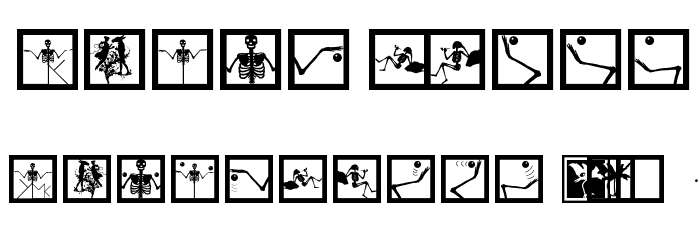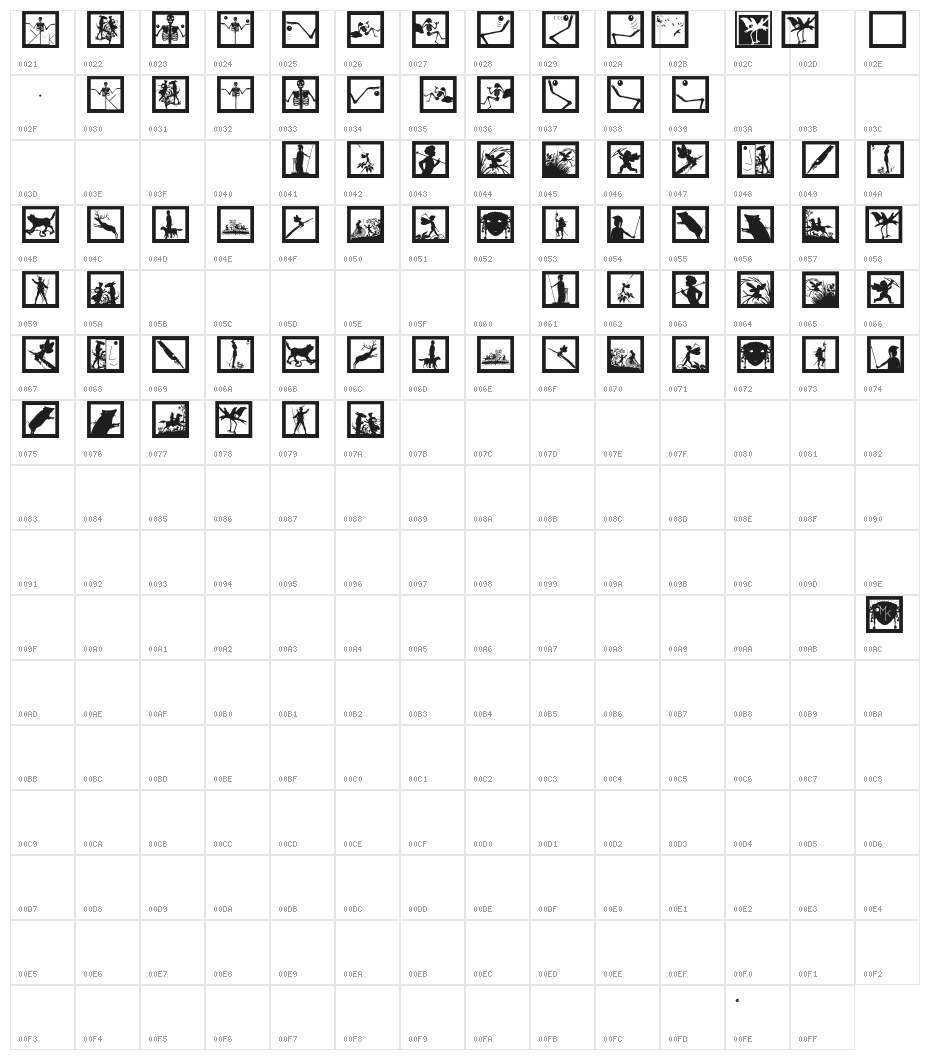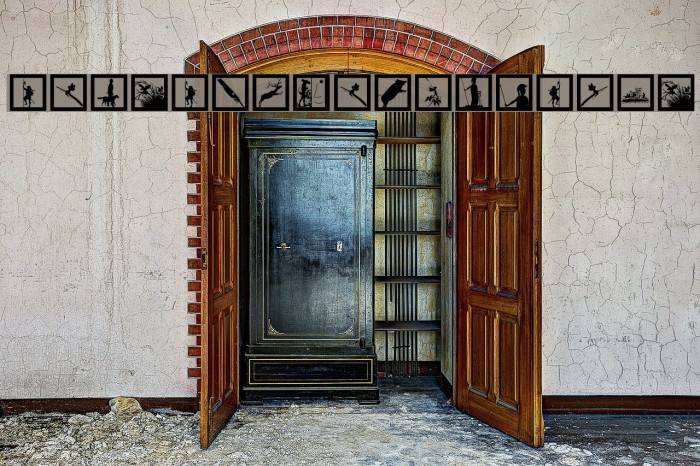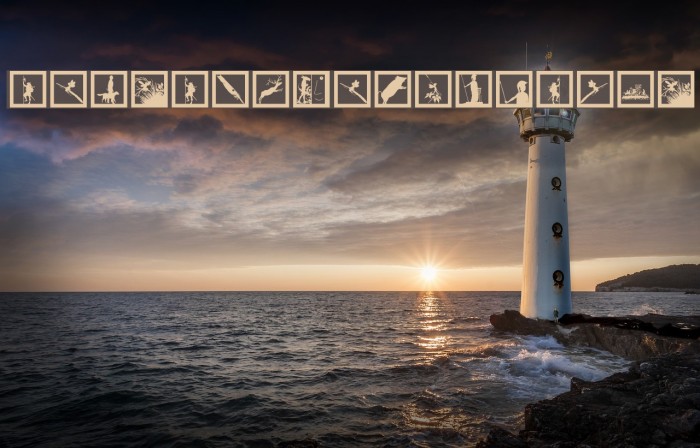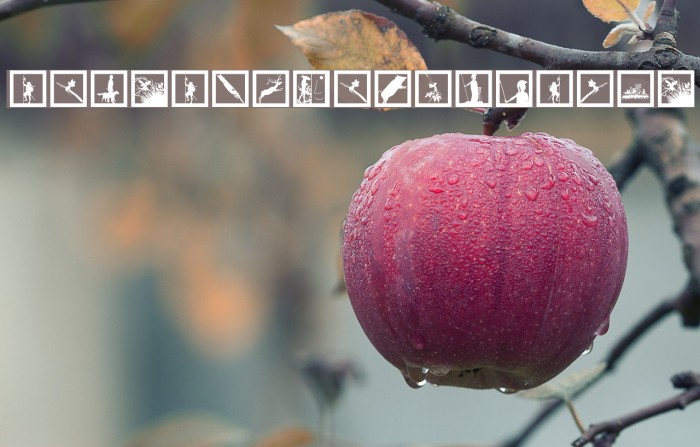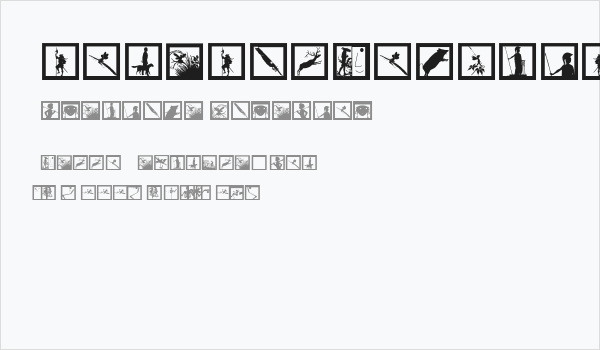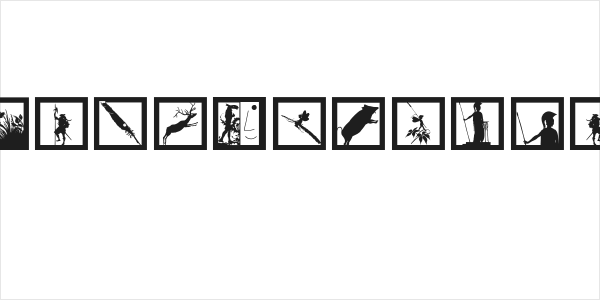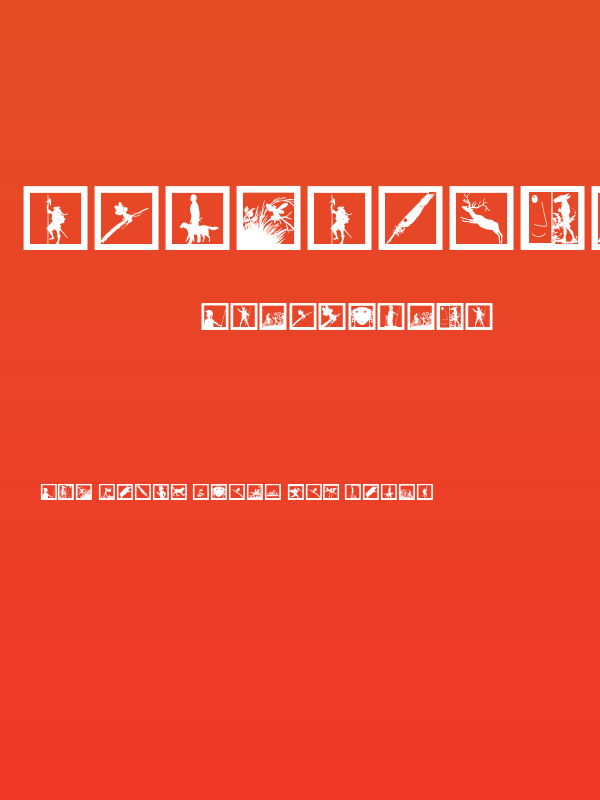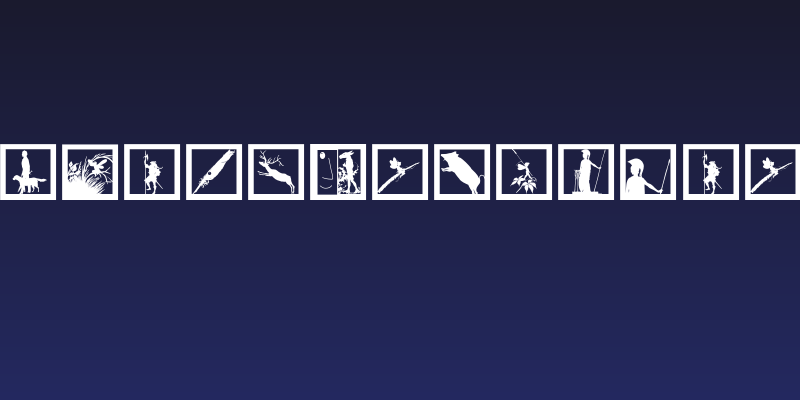
SomeSilhouBatsOne Font
SomeSilhouBatsOne Description
This set of characters is a collection of whimsical and playful silhouettes, each contained within a square frame. The designs feature a variety of imaginative scenes and figures, including people, animals, and abstract shapes. The silhouettes are bold and striking, with a strong contrast between the black figures and the white background. Each character is unique, offering a sense of storytelling and creativity. The overall style is decorative and artistic, making it suitable for projects that require a touch of fantasy and visual interest.
| Use Case | Logos, Illustrations, Posters |
| Proposed Projects | Ideal for creative projects such as children's book illustrations, fantasy-themed posters, or unique branding elements. |